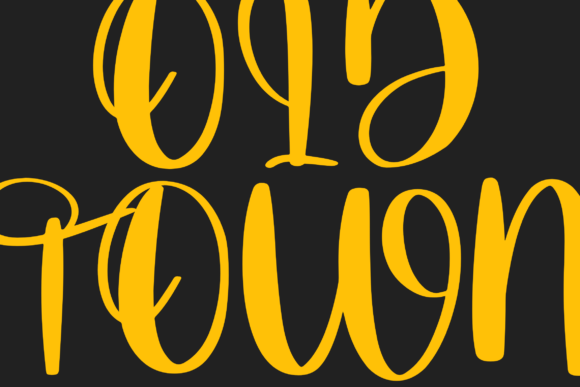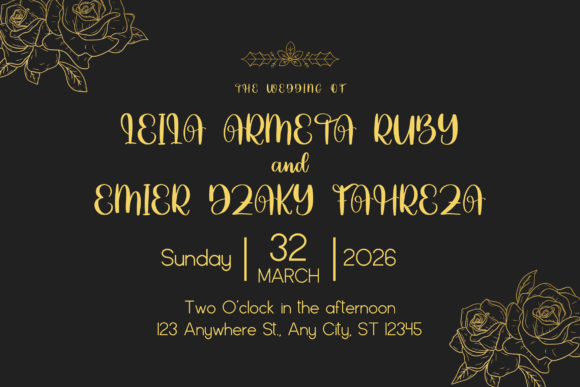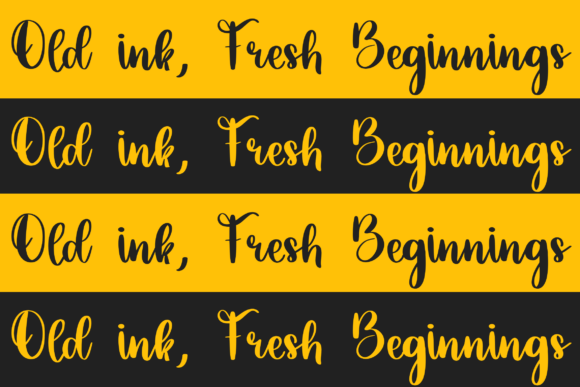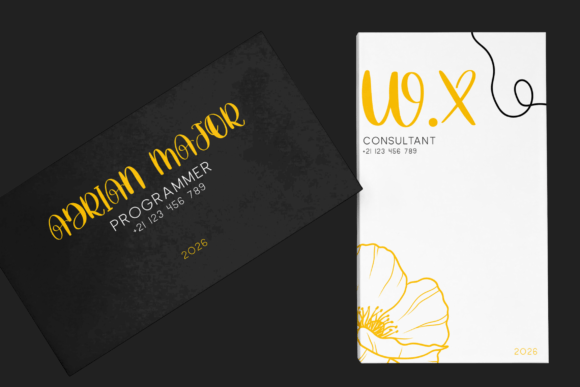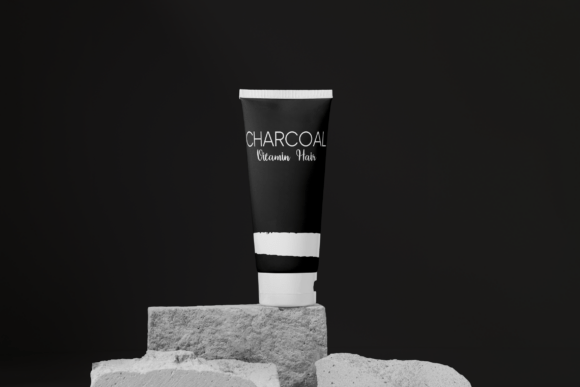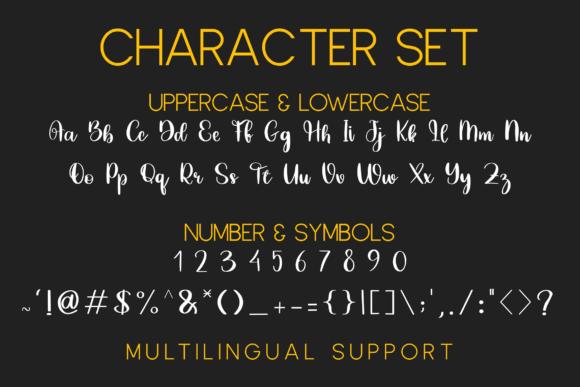
Meet Clairmont Script, the Elegant Script Font
In the world of typography, few fonts manage to convey the essence of elegance and sophistication as effortlessly as Clairmont Script. This refined handwritten script font has been making waves in the design community, and for good reason. With its graceful curves and smooth, confident flow, Clairmont Script is the perfect choice for designers and crafters looking to add a touch of luxury to their projects.
The Characteristics of Clairmont Script
So, what sets Clairmont Script apart from other script fonts? For starters, its strokes feel polished yet natural, giving your words a romantic and upscale presence. The font’s curves are carefully crafted to create a sense of fluidity, making it perfect for use in a variety of applications, from wedding branding to luxury packaging. Whether you’re looking to create a stunning invitation or a beautiful logo, Clairmont Script is the perfect choice.
Use Clairmont Script for a Variety of Projects
One of the things that makes Clairmont Script so versatile is its wide range of uses. Here are just a few ideas to get you started:
- Wedding Branding: Create a stunning wedding logo or branding materials that exude elegance and sophistication.
- Invitations: Use Clairmont Script to create beautiful wedding invitations, save-the-date cards, and other stationery.
- Luxury Packaging: Add a touch of luxury to your packaging with Clairmont Script, perfect for high-end beauty products or premium foods.
- Beauty Logos: Create a stunning logo for your beauty business that exudes elegance and sophistication.
- Social Media Quotes: Use Clairmont Script to create inspiring and stylish quotes for social media.
- Signature-Style Designs: Add a personal touch to your designs with Clairmont Script, perfect for creating custom signatures or letterheads.
The Benefits of Using Clairmont Script
So, why choose Clairmont Script over other script fonts? Here are just a few benefits:
- Elegant: Clairmont Script is the epitome of elegance, making it perfect for high-end designs.
- Timeless: Unlike trendy fonts that quickly go out of style, Clairmont Script is timeless, ensuring your designs will look beautiful for years to come.
- Effortlessly Sophisticated: Clairmont Script is easy to use and effortlessly sophisticated, making it perfect for designers and crafters of all levels.
Tips for Using Clairmont Script
To get the most out of Clairmont Script, here are a few tips:
- Use it sparingly: Clairmont Script is a statement font, so use it sparingly to make a big impact.
- Pair it with a sans-serif font: Pair Clairmont Script with a sans-serif font to create a beautiful contrast.
- Experiment with colors: Clairmont Script looks beautiful in a variety of colors, so don’t be afraid to experiment.
In conclusion, Clairmont Script is a refined handwritten script font that exudes elegance and sophistication. With its wide range of uses and benefits, it’s the perfect choice for designers and crafters looking to add a touch of luxury to their projects. Whether you’re creating wedding branding, invitations, or luxury packaging, Clairmont Script is sure to impress. So why wait? Give Clairmont Script a try today and see the difference for yourself.